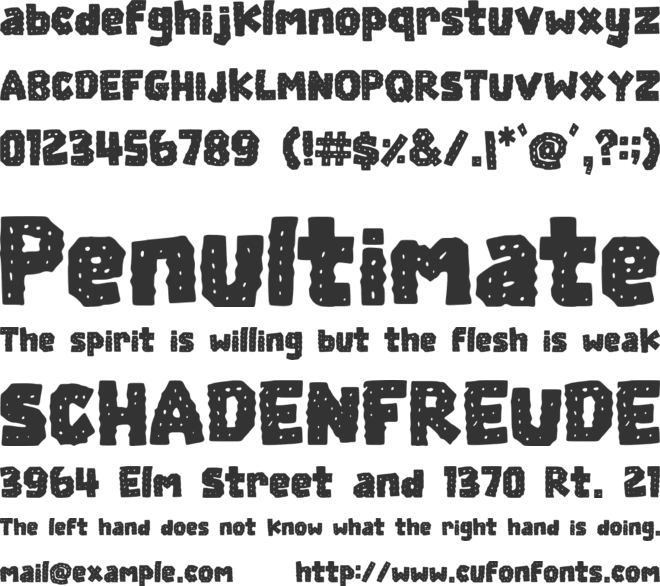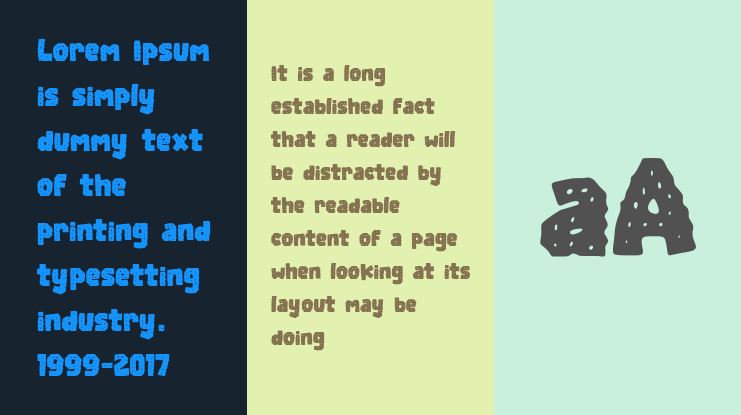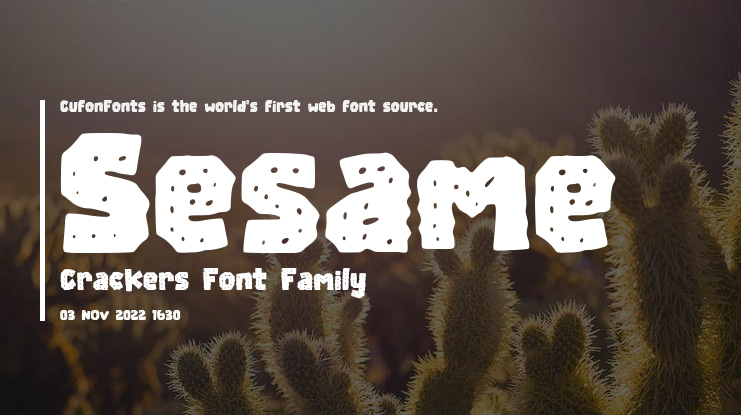
Sesame Crackers Font
Sesame Crackers – A Fun and Crunchy Display Font
Bring a playful twist to your design projects with Sesame Crackers, a bold and bouncy display font that’s packed with personality! Inspired by the texture and whimsy of delicious crackers, this font features chunky, hand-crafted letters with a quirky dotted pattern that adds flavor to every word.
Perfect for children’s books, snack packaging, cartoon titles, party invitations, or any creative work that needs a cheerful and eye-catching vibe. With its bold outlines and fun shapes, Sesame Crackers guarantees your message will stand out with a smile.
Sesame Crackers font preview